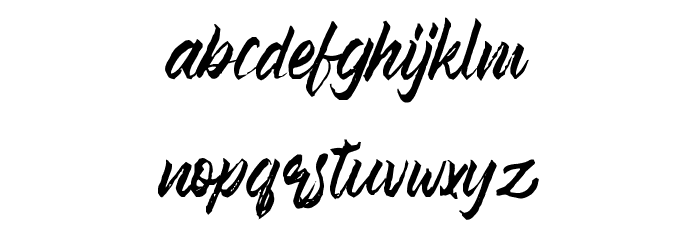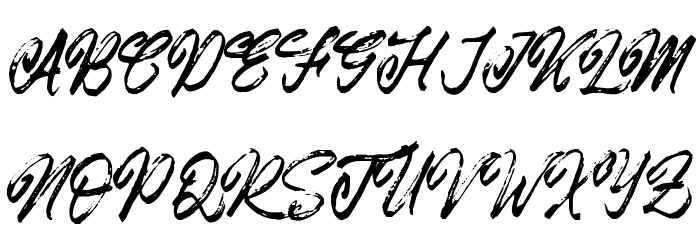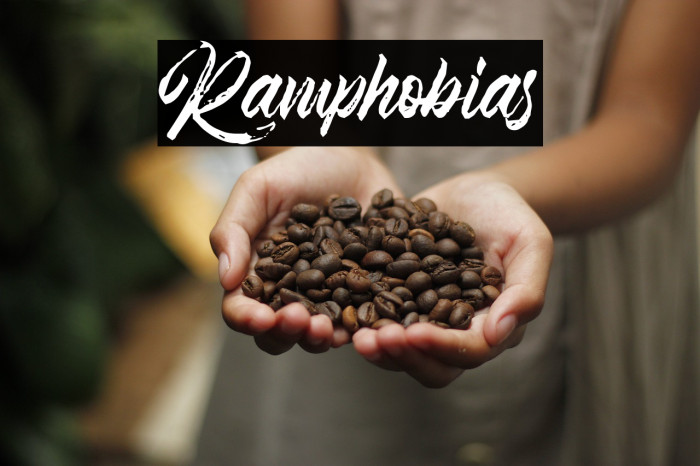
Ramphobias Font
This font features a bold, expressive script style with a textured, brush-like appearance. The characters are connected, giving it a fluid and dynamic look, reminiscent of hand-painted lettering. The uppercase letters are particularly striking, with dramatic flourishes and varying stroke widths that add a sense of movement and energy. The lowercase letters maintain the same brush-like quality, with smooth curves and a slightly informal feel. The numbers and special characters are consistent with the overall style, ensuring a cohesive look across all text elements. This font is ideal for projects that require a bold, artistic touch.
A bold, textured script font with a brush-like, expressive style.
- Proposed Projects: Ideal for branding, posters, invitations, and any project needing a dynamic, artistic touch.